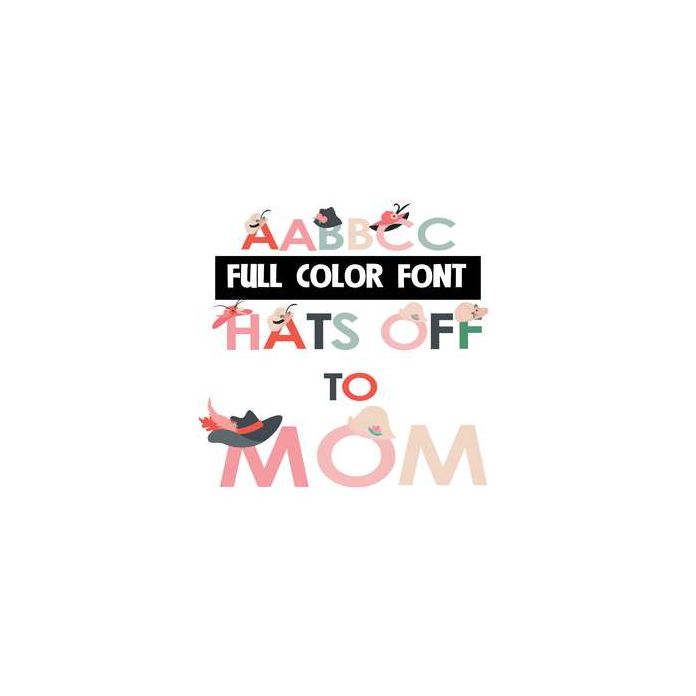
This full-color font features little hats and fascinators on the uppercase and a lowercase without. Mix up both cases as you type. This font works best for titles, displays, posters and more. Please note color fonts will show as black in non compatible programs. This font type is compatible with Silhouette Studio.